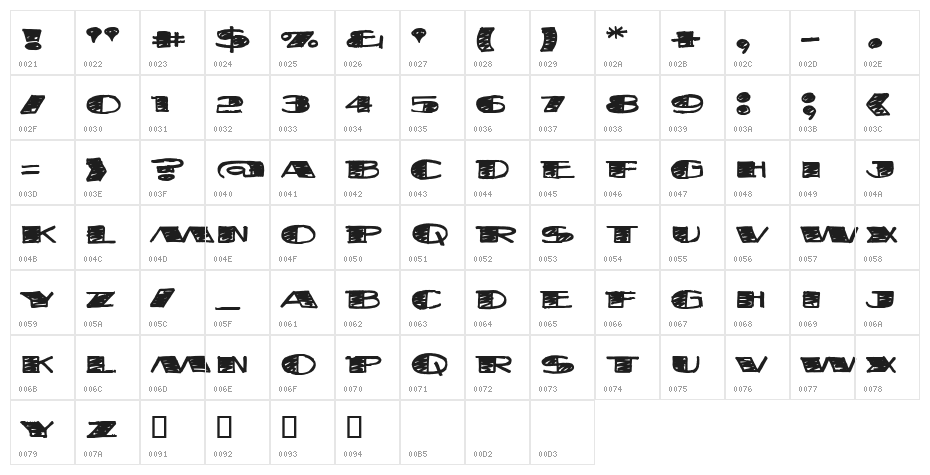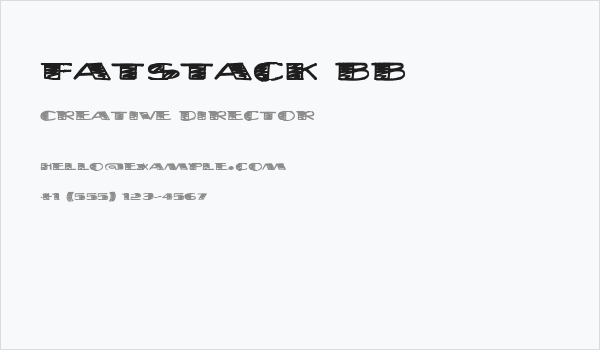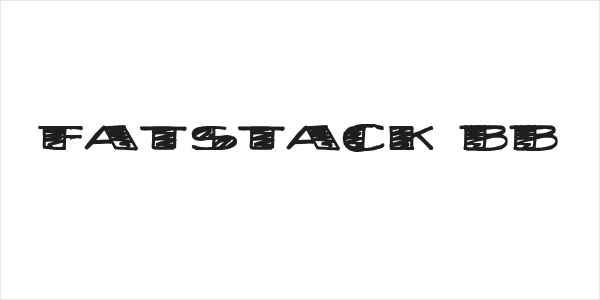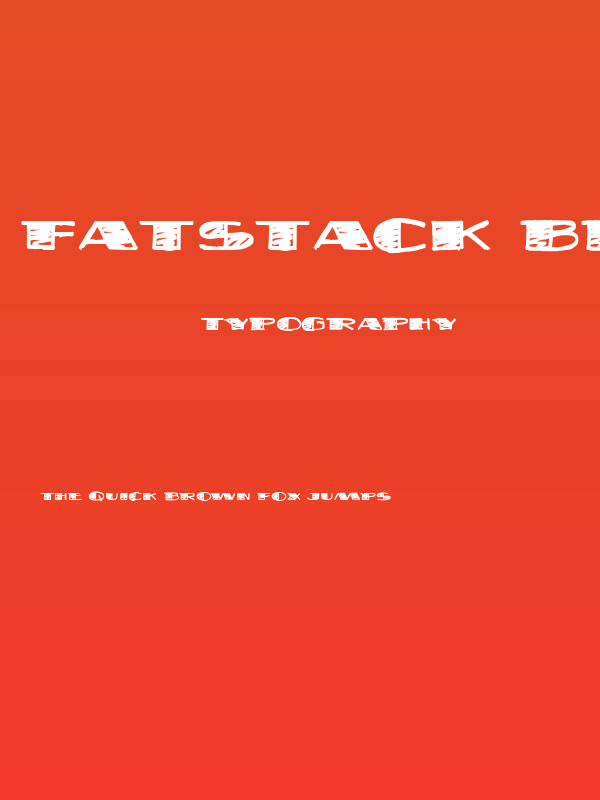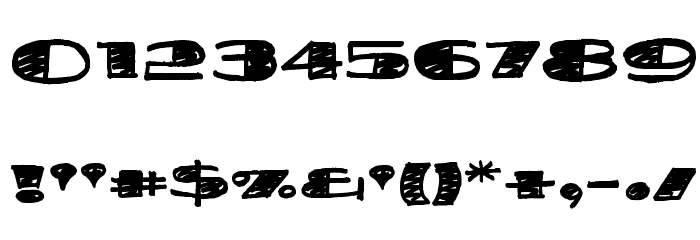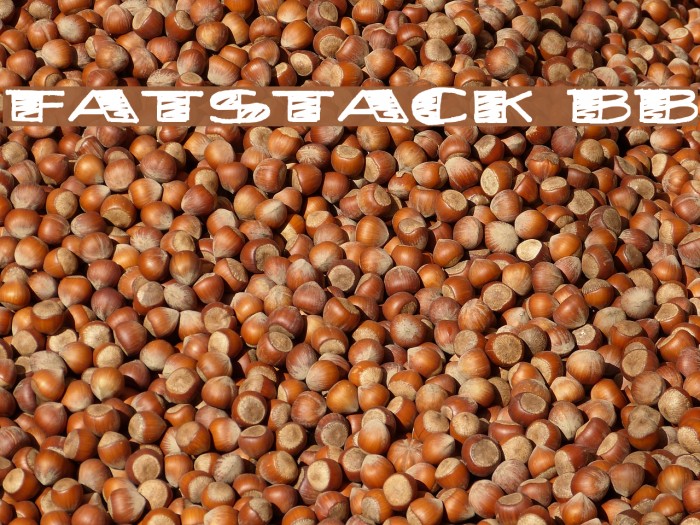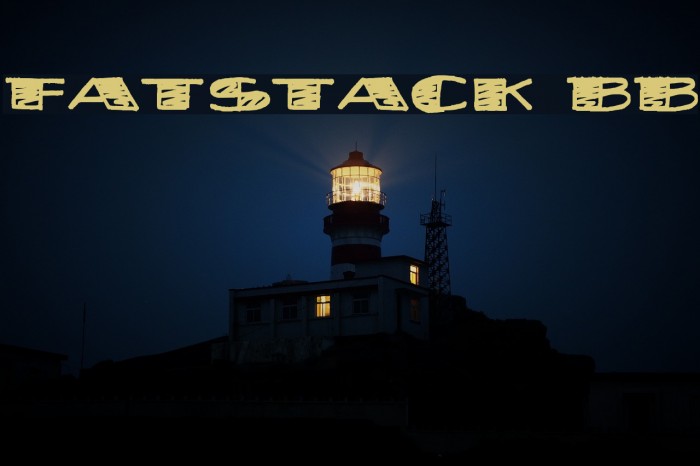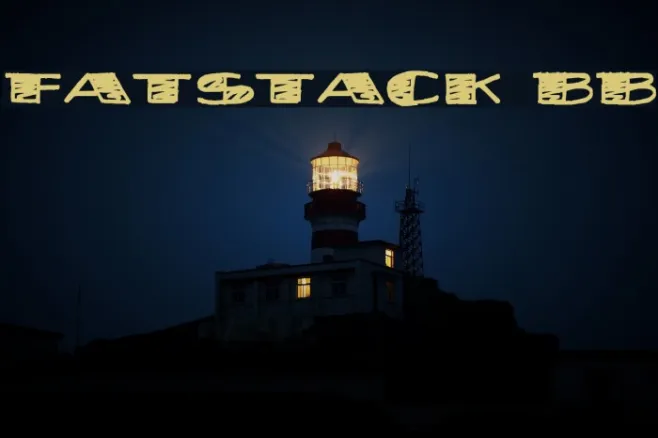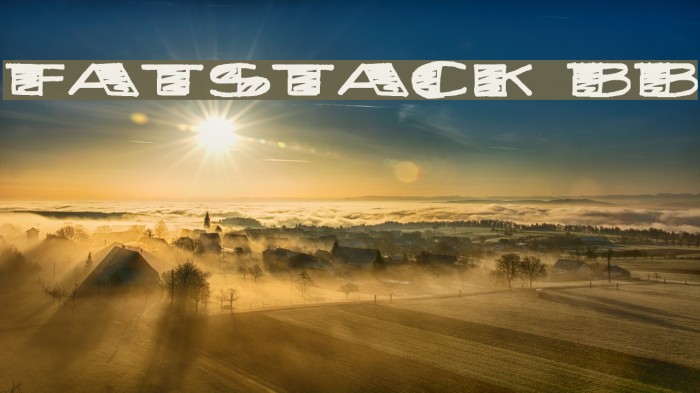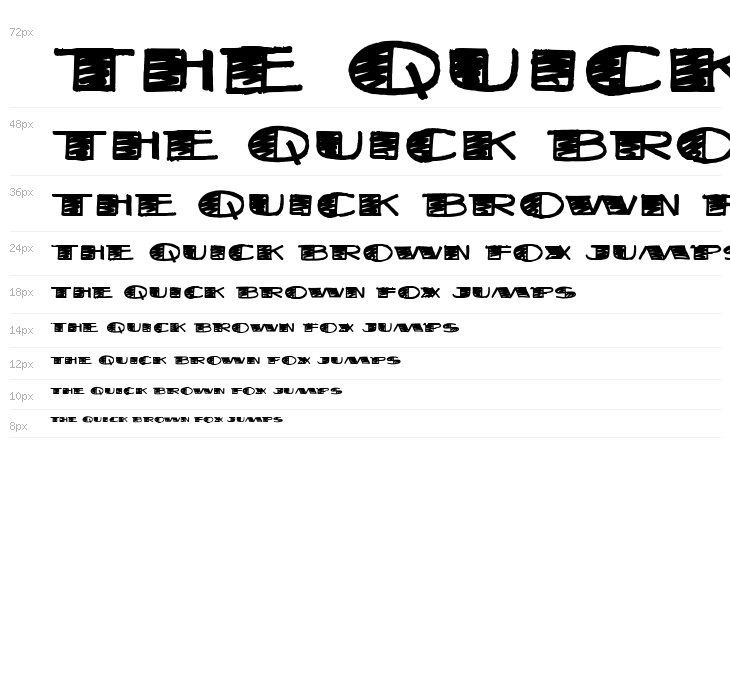
FatStack BB Font
FatStack BB Description
This font features a bold and playful design with a hand-drawn aesthetic. Each character is filled with a unique pattern of diagonal lines, giving it a textured and dynamic appearance. The letters are wide and have a slightly irregular shape, adding to the whimsical and informal style. The font maintains a consistent thickness throughout, with rounded edges that soften its overall look. It is highly decorative, making it suitable for eye-catching designs and creative projects. The numbers and special characters follow the same design principles, ensuring a cohesive look across all elements.
| Proposed Projects | Ideal for posters, children's books, comic strips, and playful branding. |